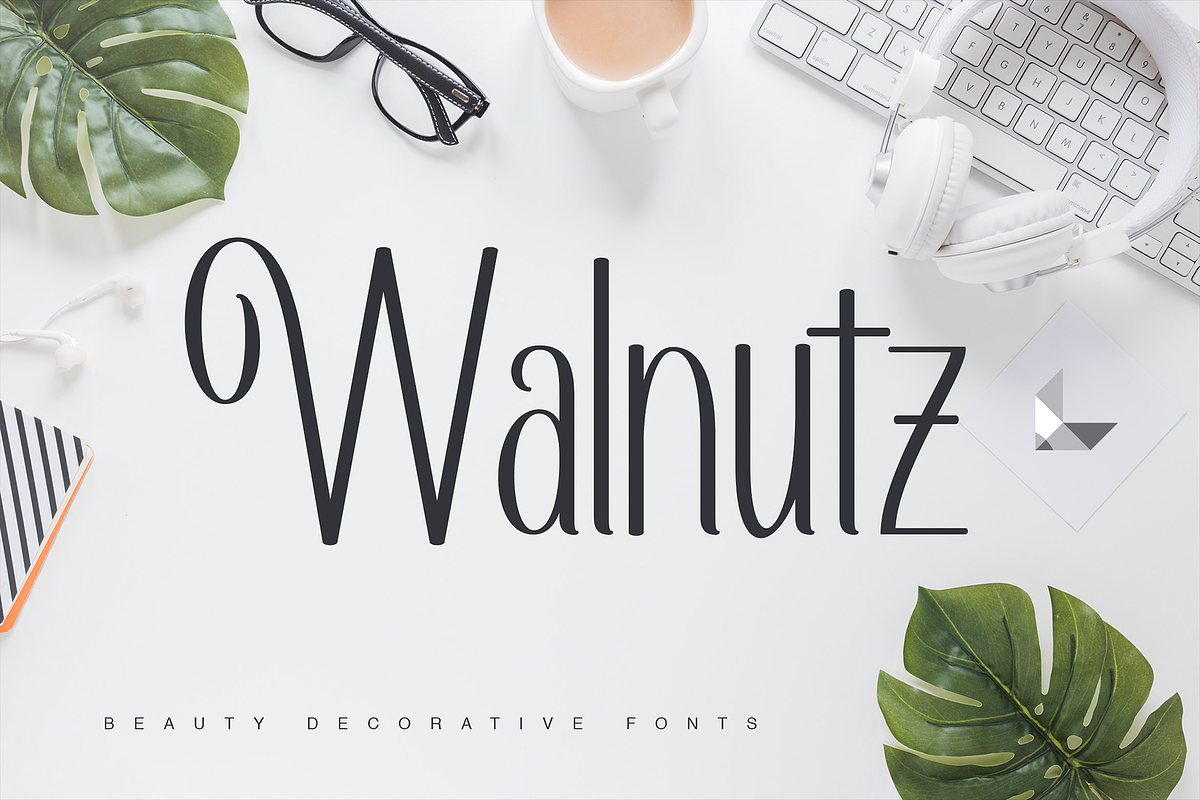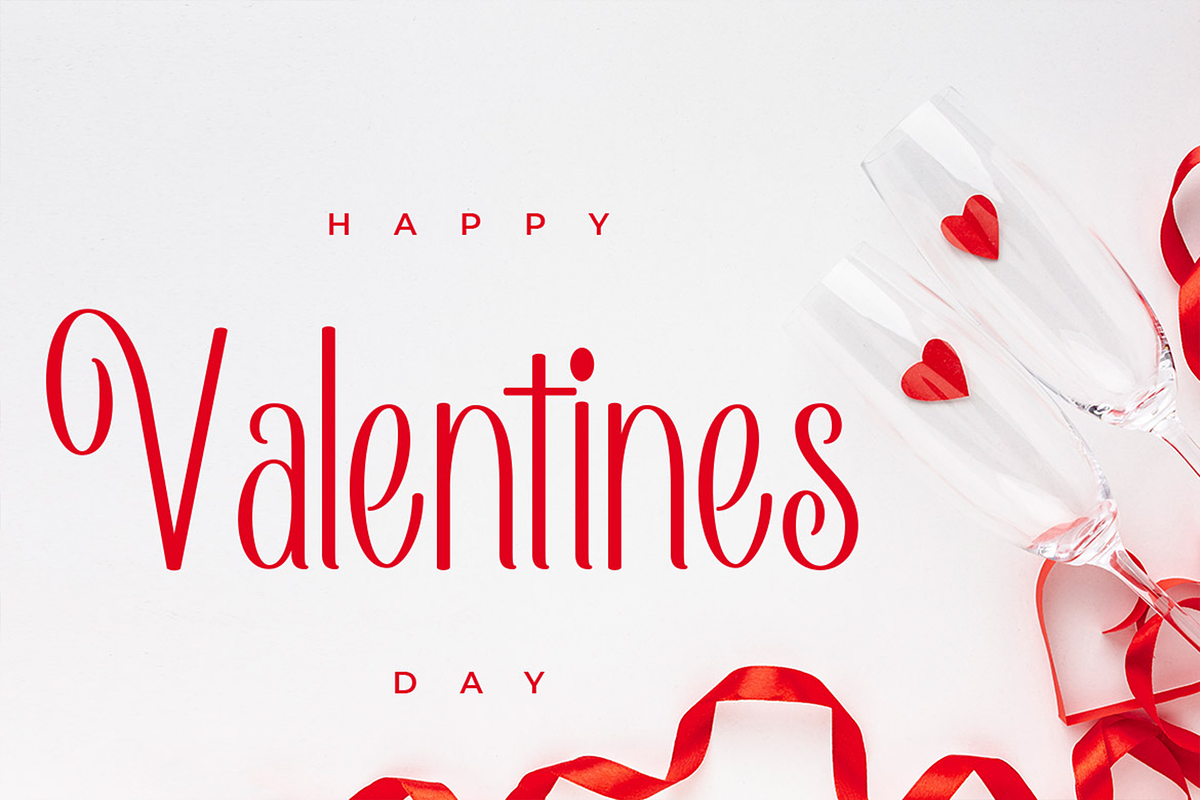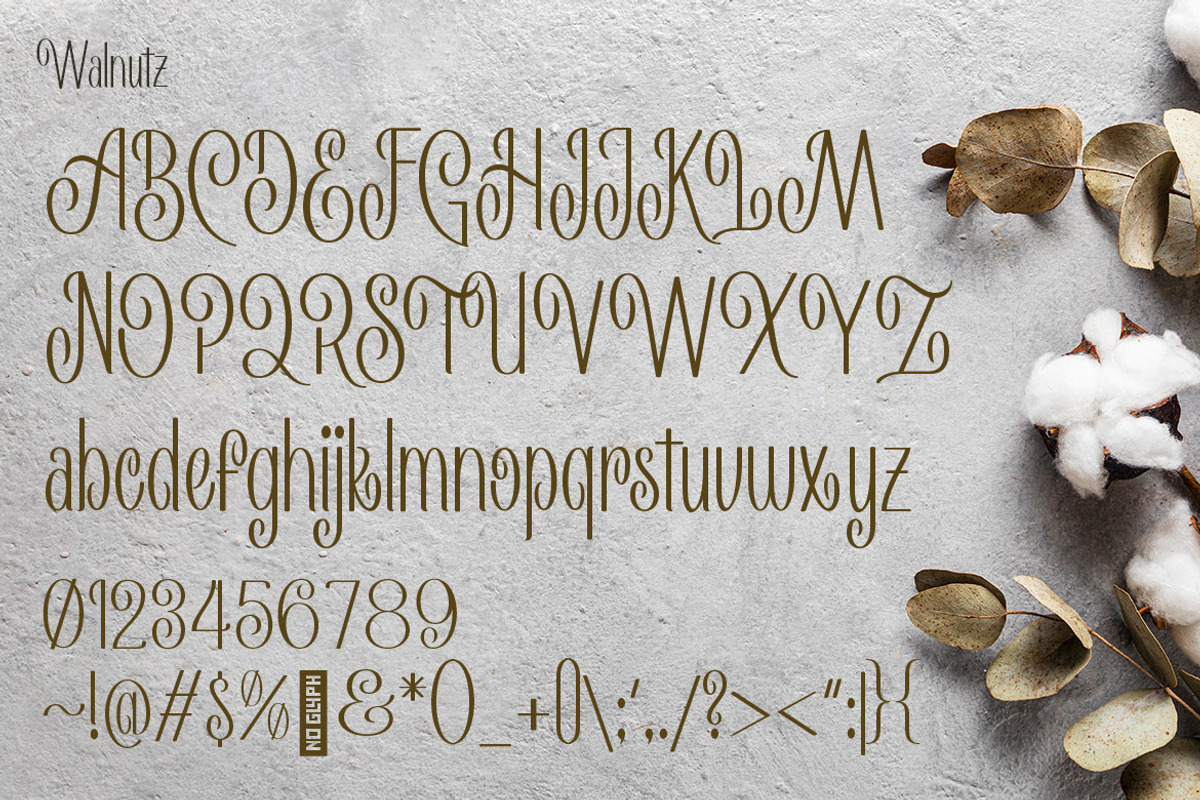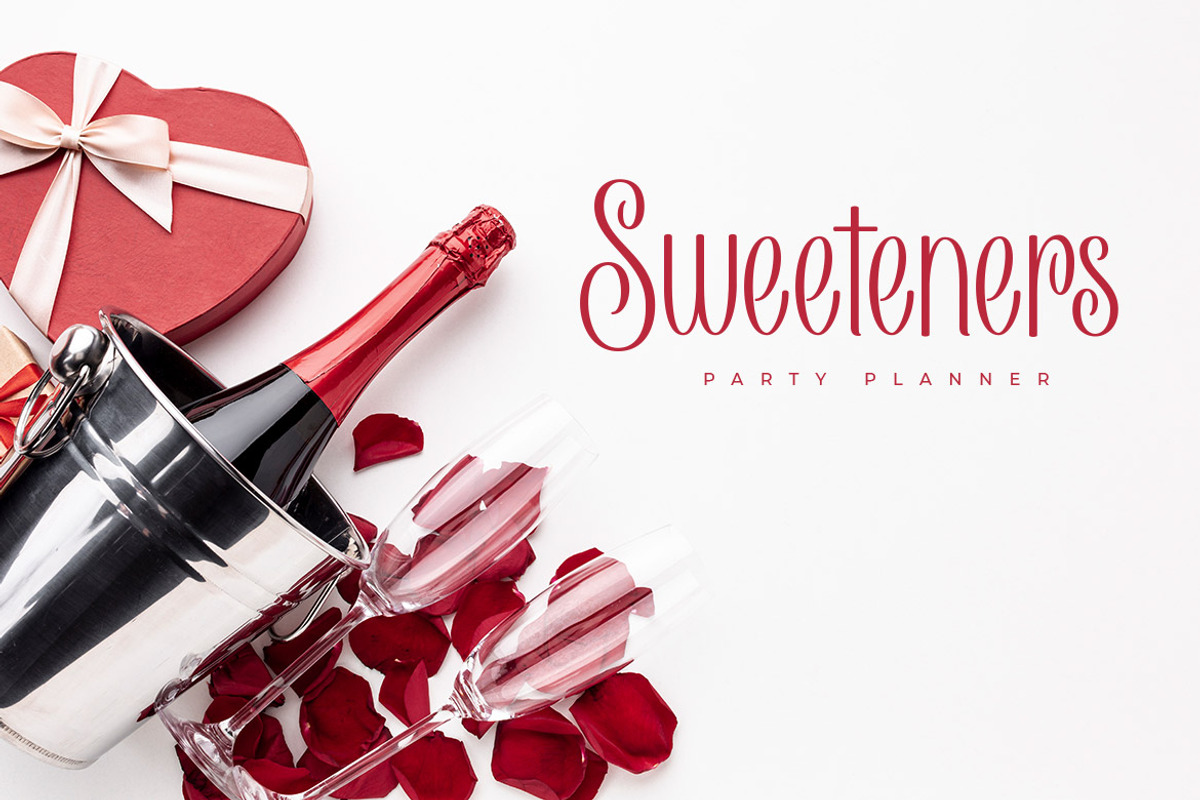
Walnutz - Beauty Decorative Fonts
Introducing Walnutz, a beautiful and delicate font for your classy, elegant, and feminine touch in any visual design.
English Language support, contains Uppercase, Lowercase, Numbers, and Punctuations.